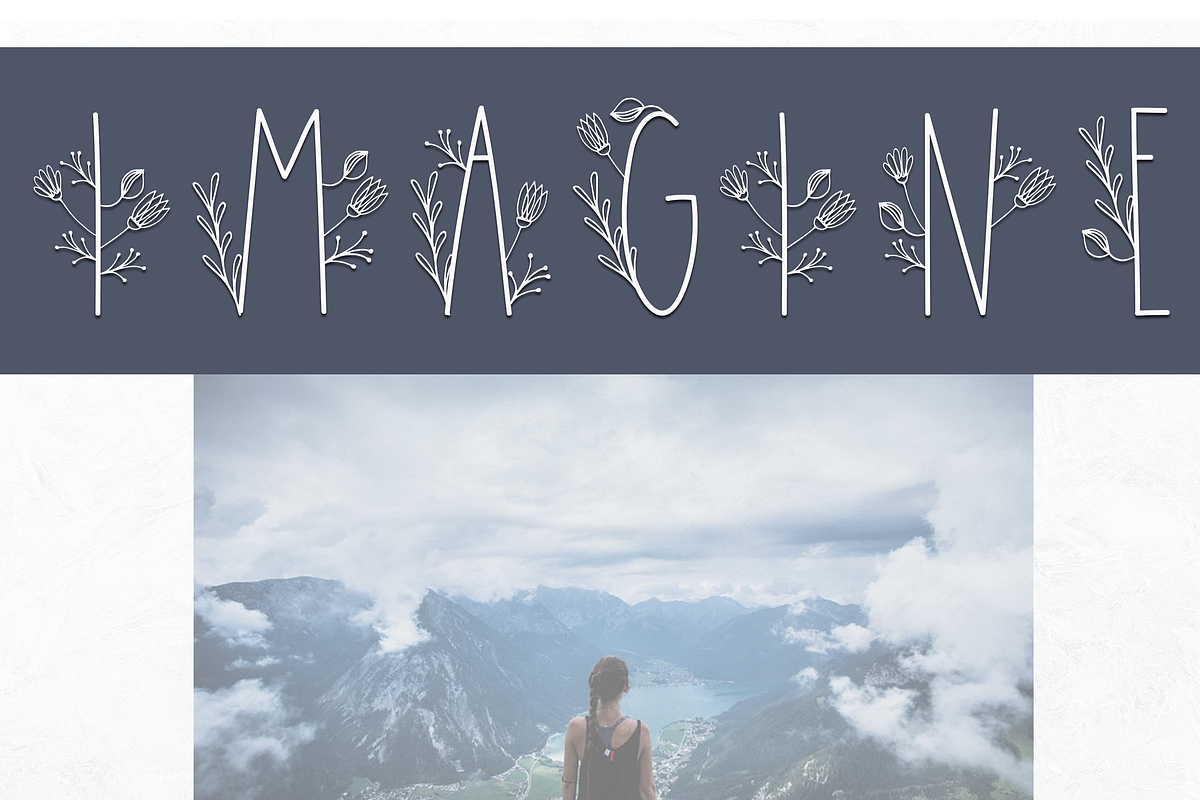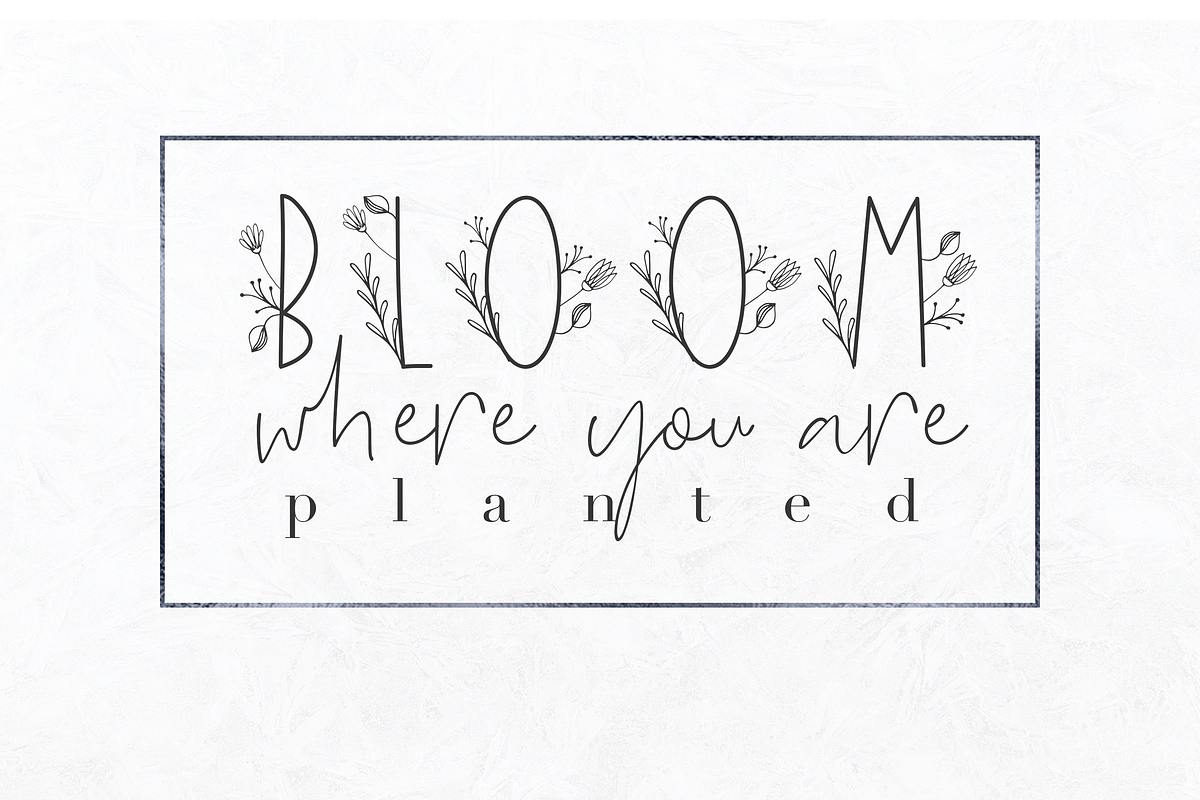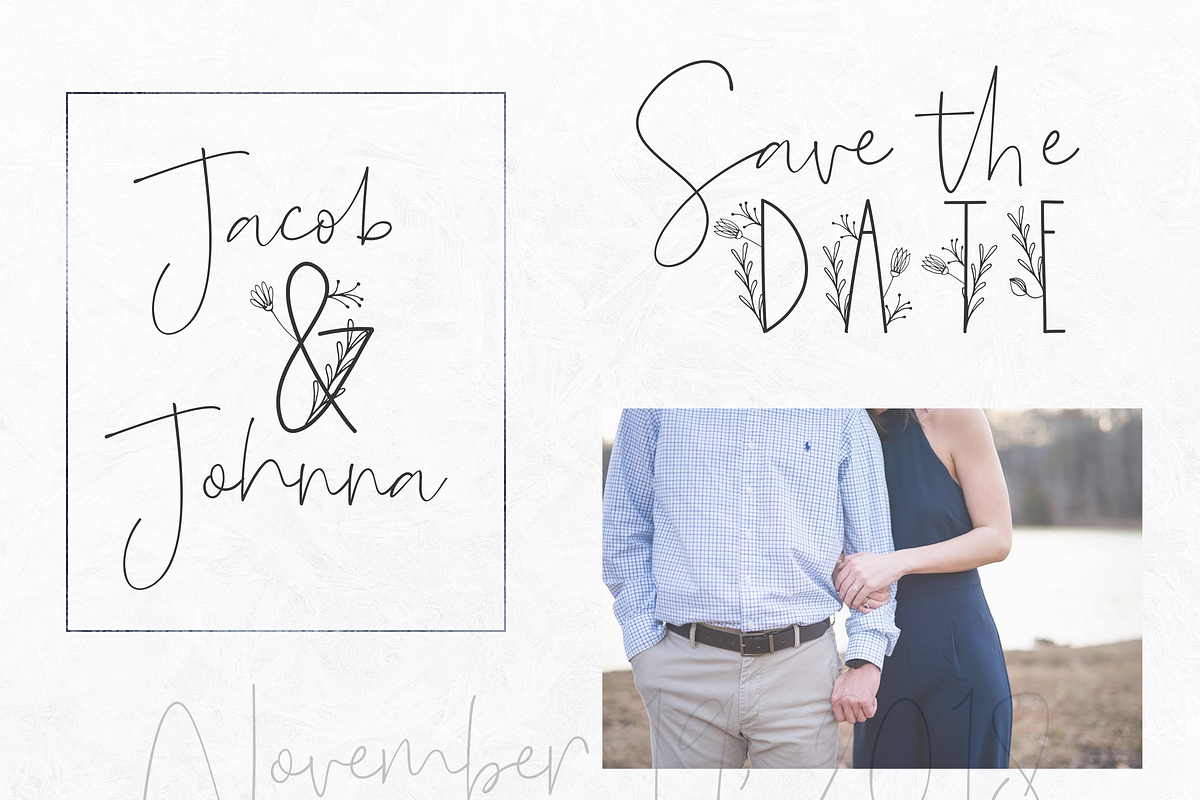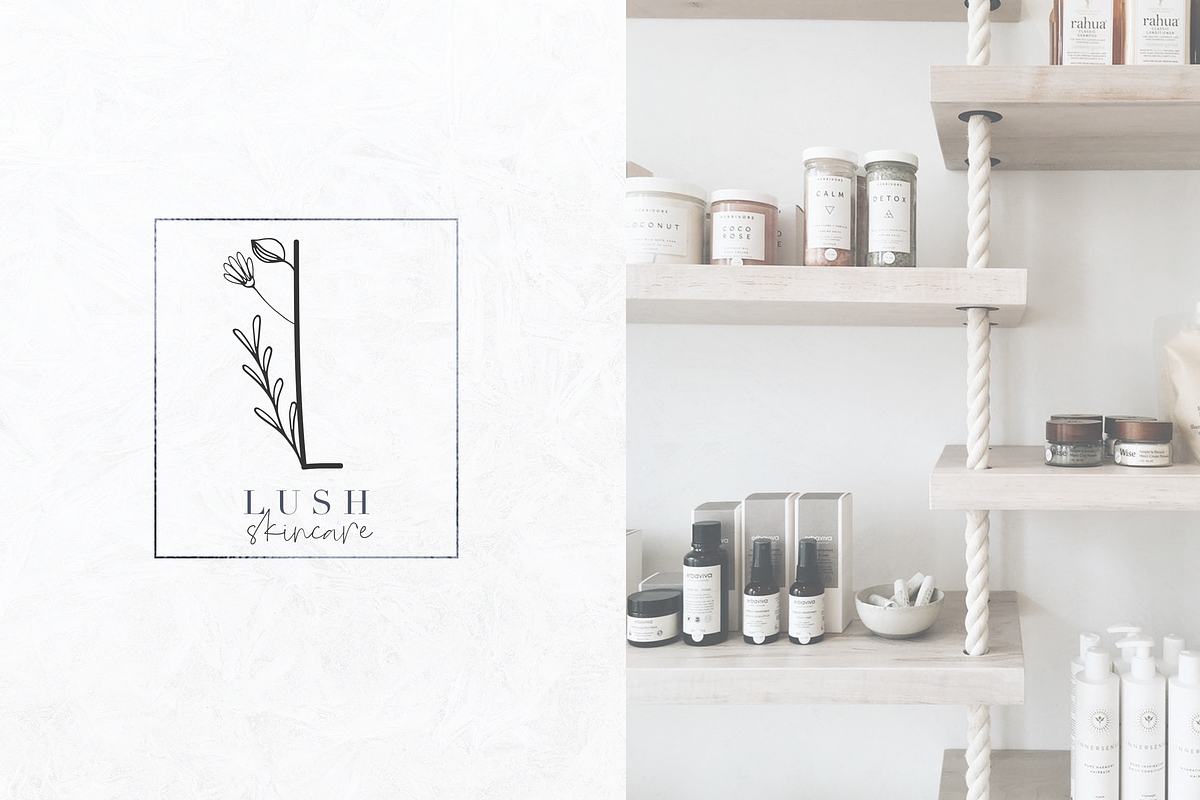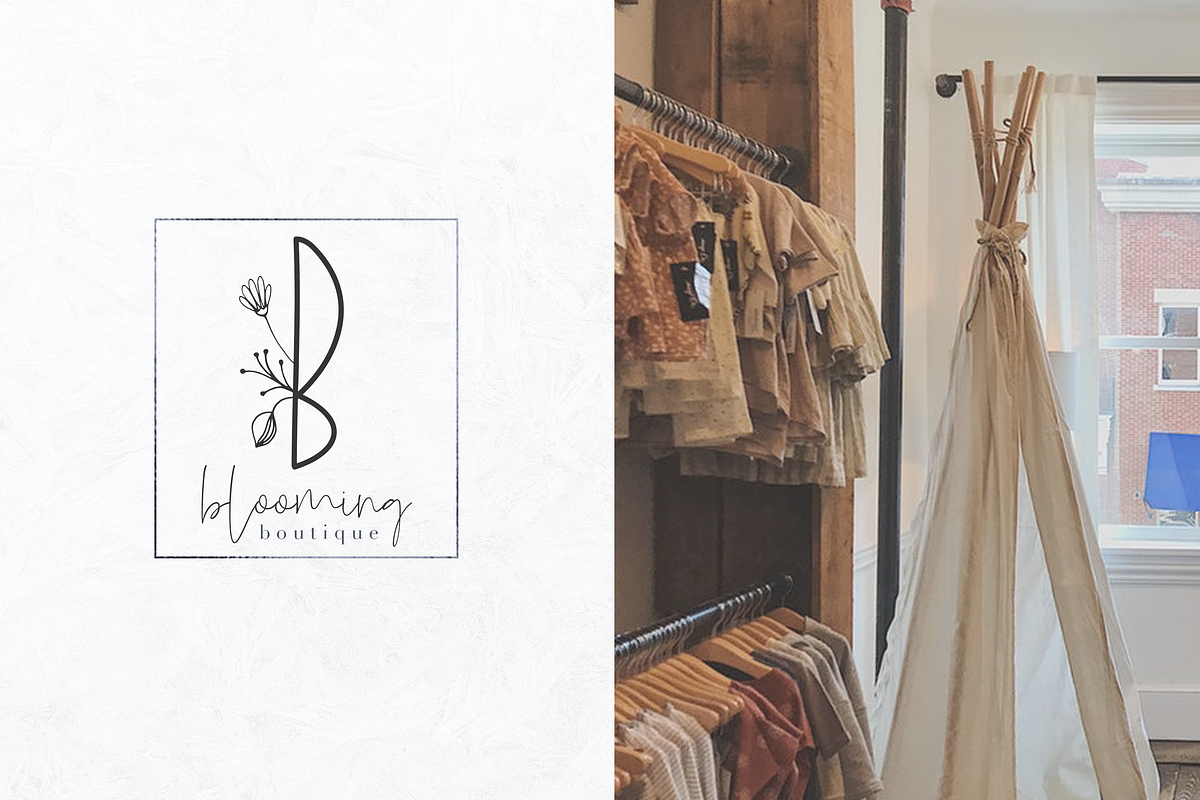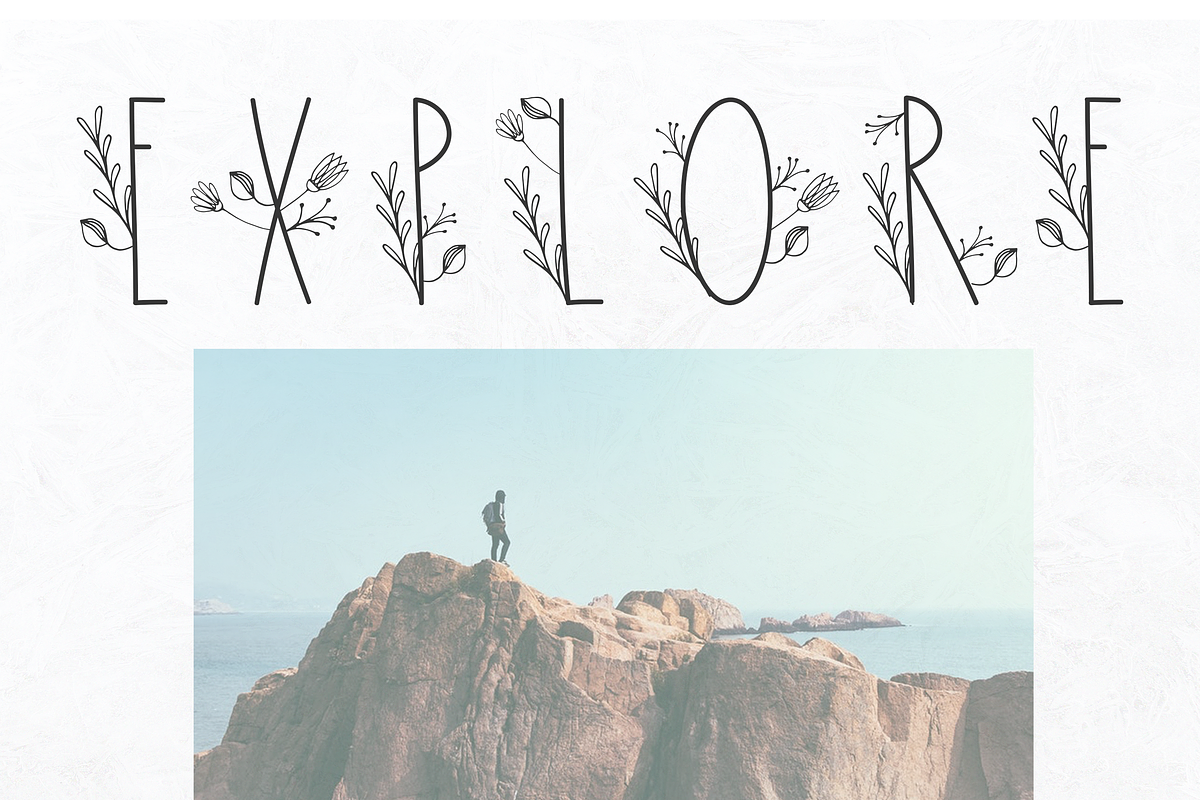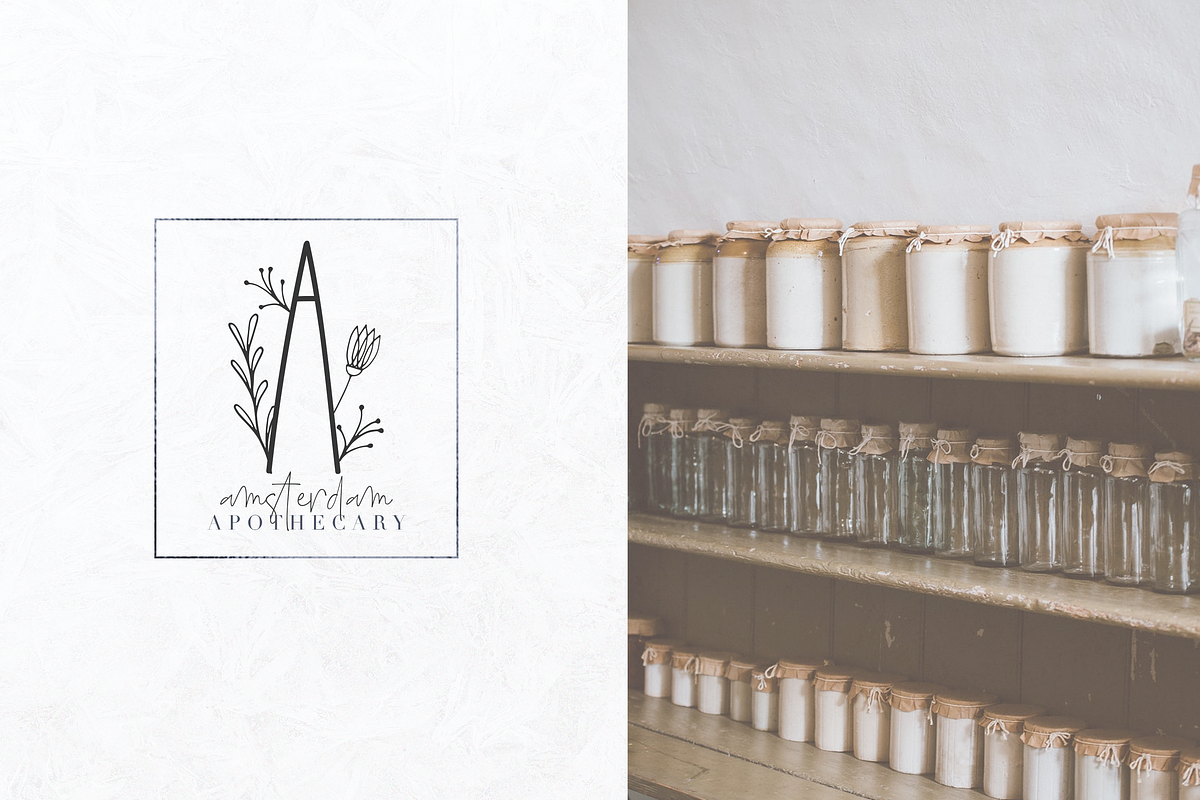
Dream - Handmade Floral Font
Dream is a handmade floral font. It is perfect for logo creation, branding, websites, business cards, invitations and more!
Each letter has been handcrafted into a beautiful floral piece. The floral designs of each letter are unique to that letter only. There are no duplicate floral designs. This is an all caps font with punctuation and numbers - no accents are included.